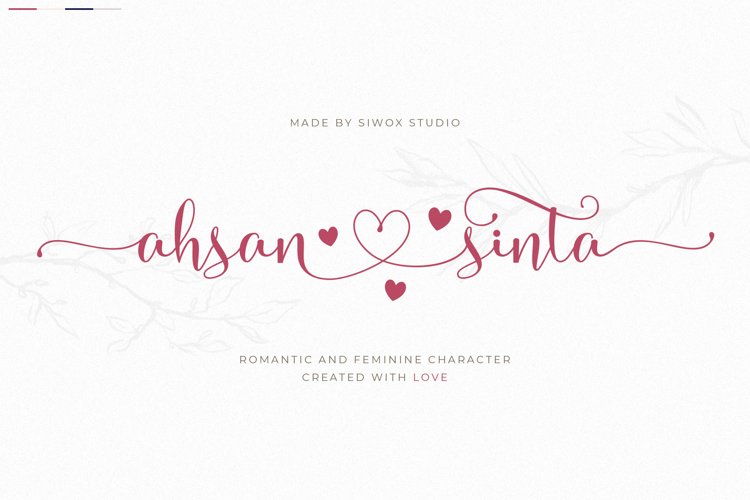
Ahsan & Sinta!
Create your own beautiful moments with Ahsan Sinta fonts. A beautiful script that is suitable for romantic projects. Ahsan Sinta fonts has Opentype Features that can be accessed easily with your any opentype apps.
This font comes with many alternates including: